Nordic font styles have seen a surge in popularity recently, capturing the essence of Scandinavian culture, history, and design. From geometric fonts to decorative and handwritten fonts, these styles bring an air of timelessness and creativity to modern design. Let’s dive into the world of Nordic fonts and explore why they’re such a hot trend today.
The Origins Of Nordic Fonts
Nordic fonts often draw inspiration from the rich history of the Nordic countries, including Viking and Norse cultures. Many fonts in this category feature a runic alphabet, an ancient script used by Germanic peoples, including the Vikings. These Scandinavian runes and Norwegian runes are often used to evoke a sense of mystique, power, and authenticity.
The popularity of these fonts extends beyond the ancient to include modern fonts that maintain a connection to Nordic traditions. Norse font families blend traditional design elements with contemporary influences, resulting in fonts that are both functional and visually striking. This evolution has led to the emergence of geometric, serif, and sans serif fonts. These fonts reflect the clean and minimalist aesthetic that Scandinavian design is known for.
Why Use Nordic Fonts?
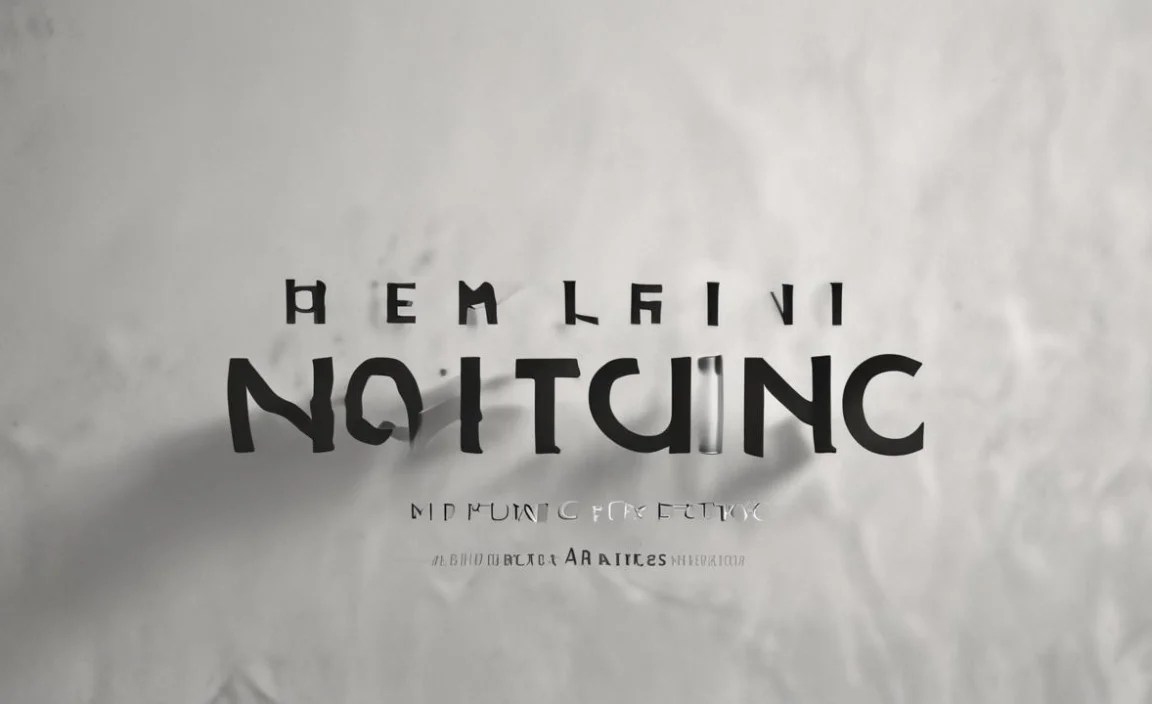
For Versatility
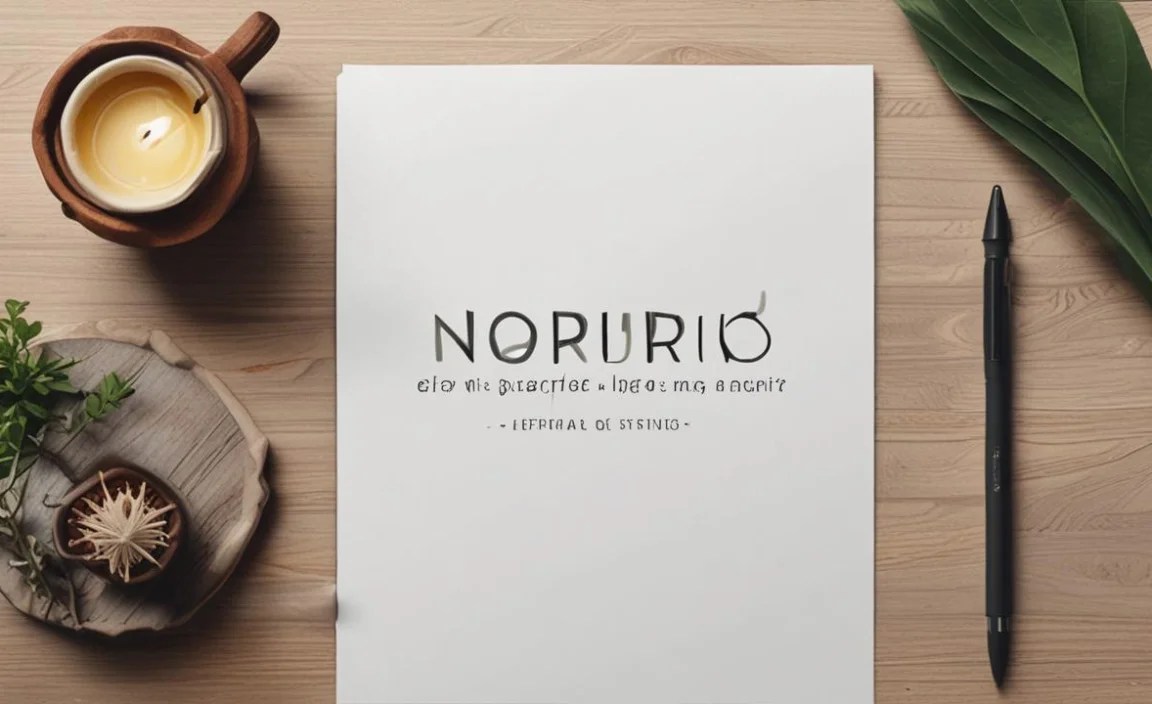
Nordic fonts can be used in a variety of applications, from logos and branding to posters and websites. Their clean lines and distinctive characteristics make them perfect for both print and digital mediums.
Character and Personality
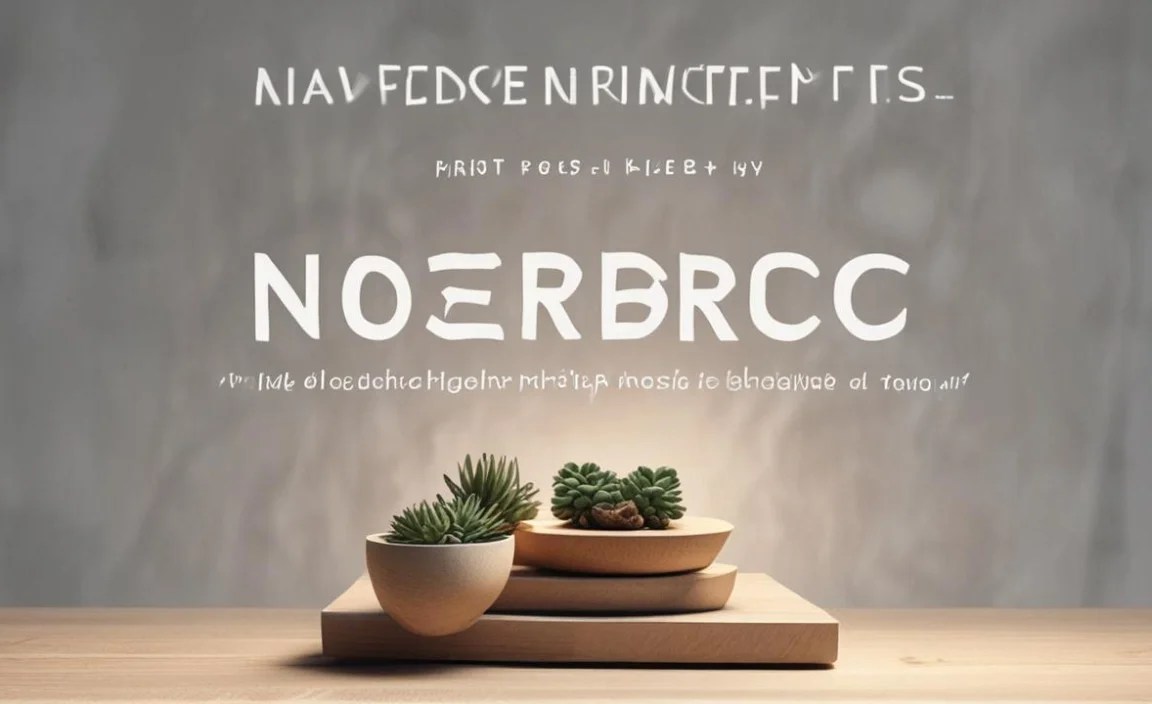
Whether you’re looking for something elegant, decorative, or futuristic, Nordic fonts offer a wide range of options. Fonts like Nordic Tale evoke a historical feel, while others with modern geometric forms provide a more contemporary, sleek appearance.
Norse Influence
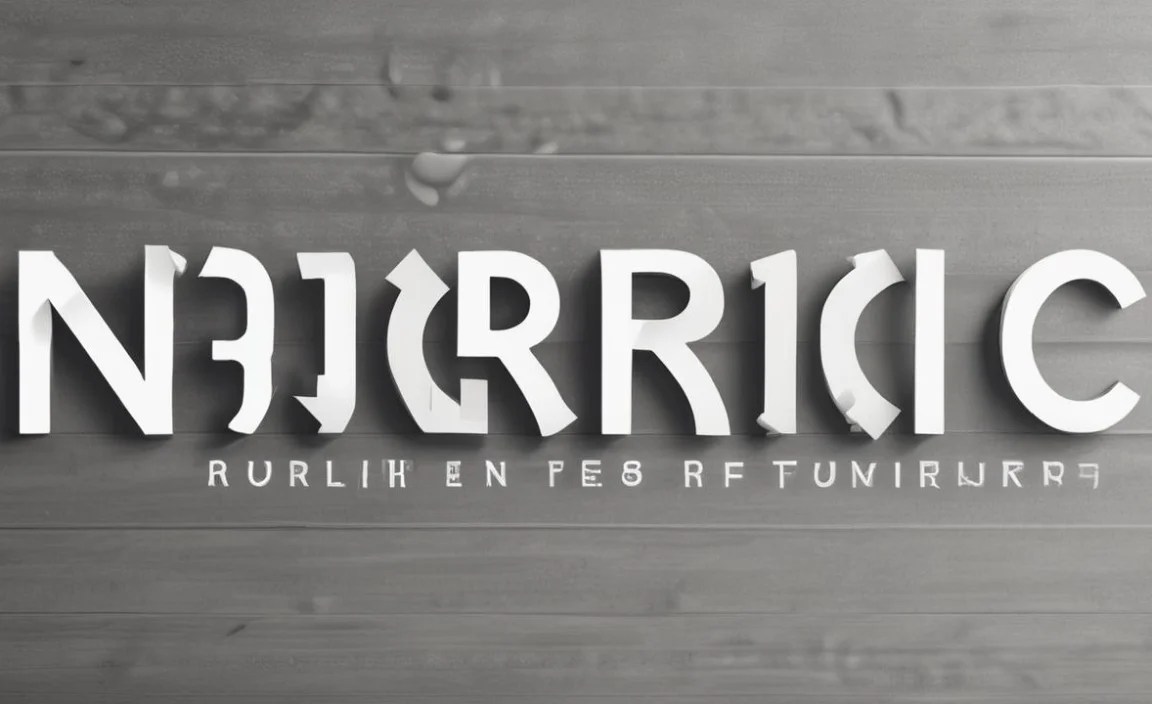
Many of the fonts draw from Norse iconography, making them ideal for projects related to pagan magazines, Nordic epigraphy, or even personal creative endeavors inspired by Viking mythology and culture.
Geometric and Decorative Styles
Fonts like Nordique Pro and Viking Nordic Runes Font offer a clean, geometric style, while others, like Nordic Dream Font Family, present a decorative and handwritten touch. There’s something for every design need, from sleek and futuristic fonts to retro fonts with vintage charm.
Bold and Impactful
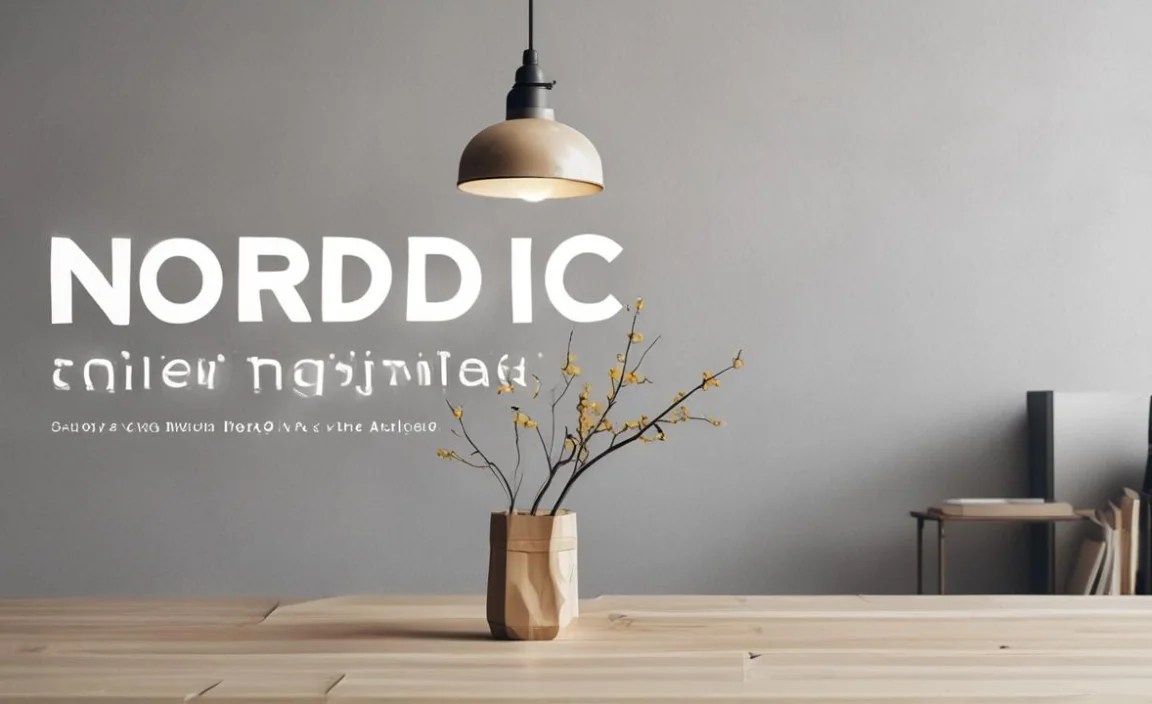
Nordic fonts are ideal for display purposes. Their uppercase letters and bold lines ensure that they stand out in any design. Whether you’re designing a poster or a logo, these fonts make a statement.
Types Of Nordic Fonts To Consider
Runic Fonts
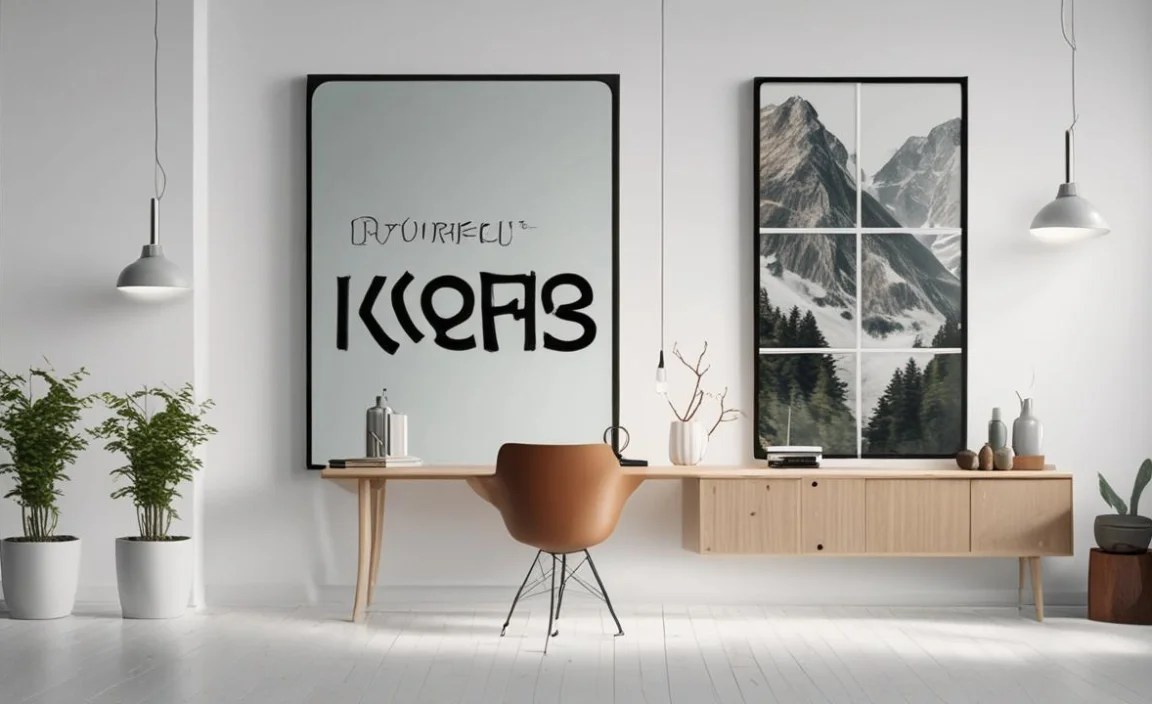
These fonts are inspired by the ancient runic alphabet, with each letter resembling the markings used by Viking warriors and Norse peoples. Runes are iconic, making them perfect for creating a historical or fantasy-inspired feel in your design. Popular options include Viking Caps and Beowulf Runic.
Serif Fonts
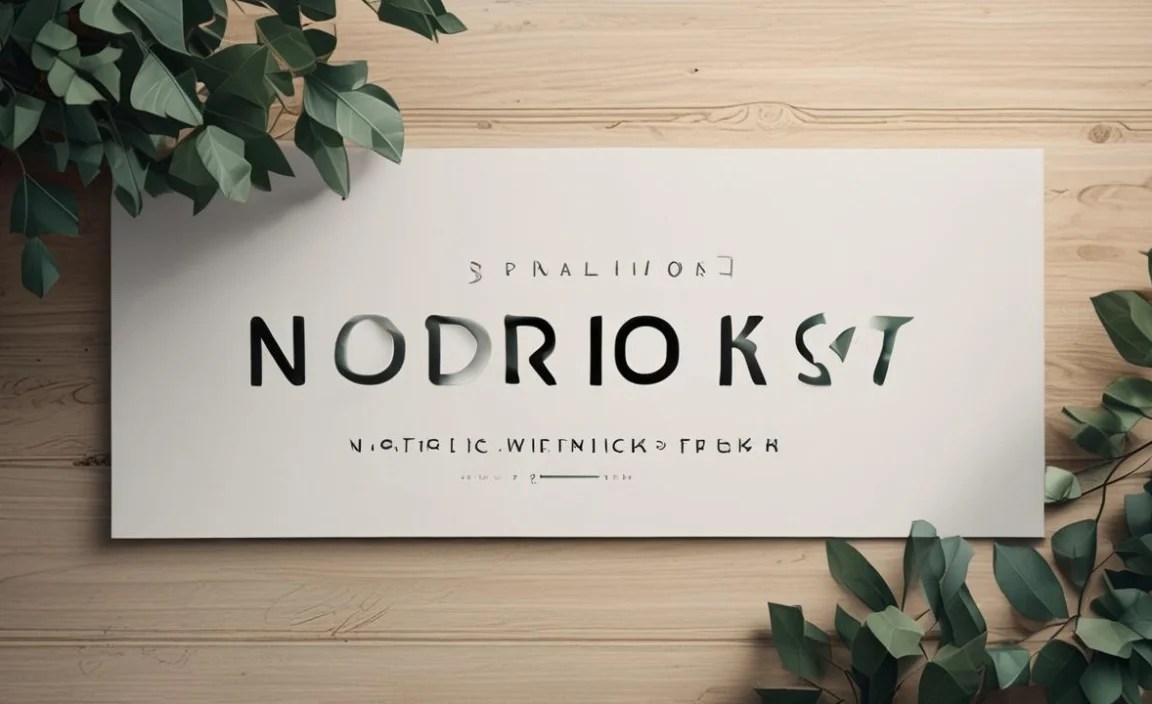
Serif fonts are a timeless classic that often evoke a sense of tradition and reliability. In the Nordic font world, serif fonts like Nordique Pro Regular blend modern and vintage elements to create an aesthetic that feels both current and rooted in history.
Sans Serif Fonts
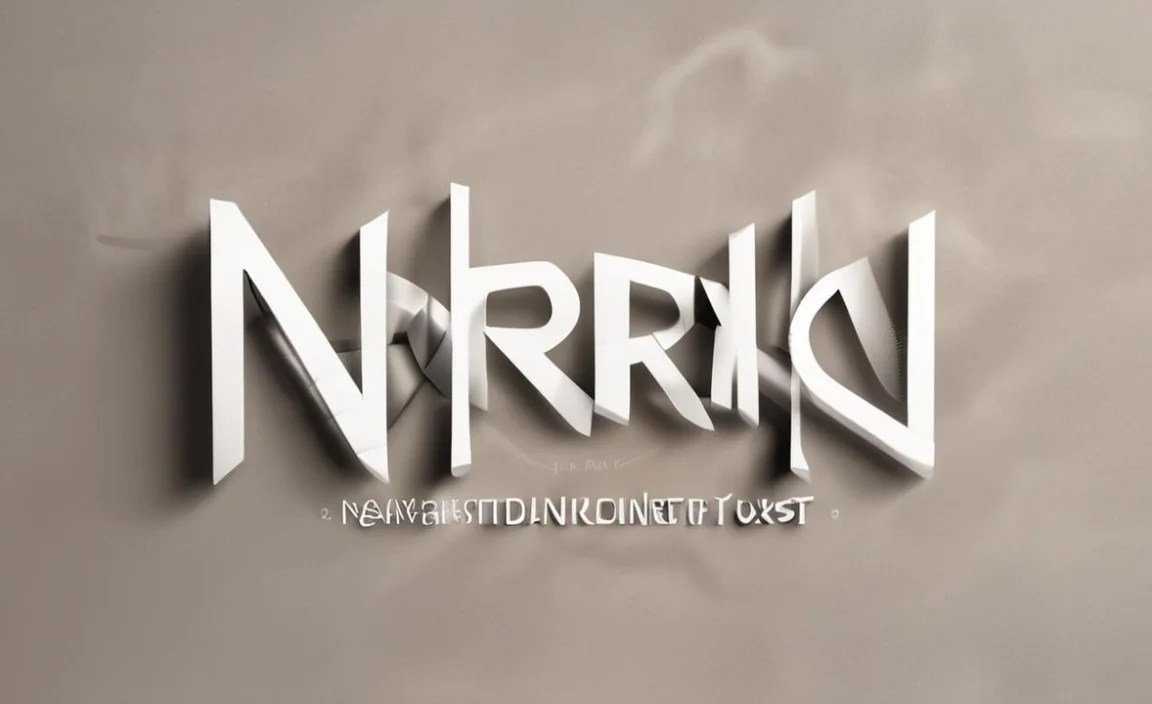
For those who prefer something more minimal and modern, sans serif fonts like Nordique Pro Bold or Sacred North Display Font are great choices. They offer clean lines and excellent legibility, making them perfect for a variety of design projects.
Script Fonts
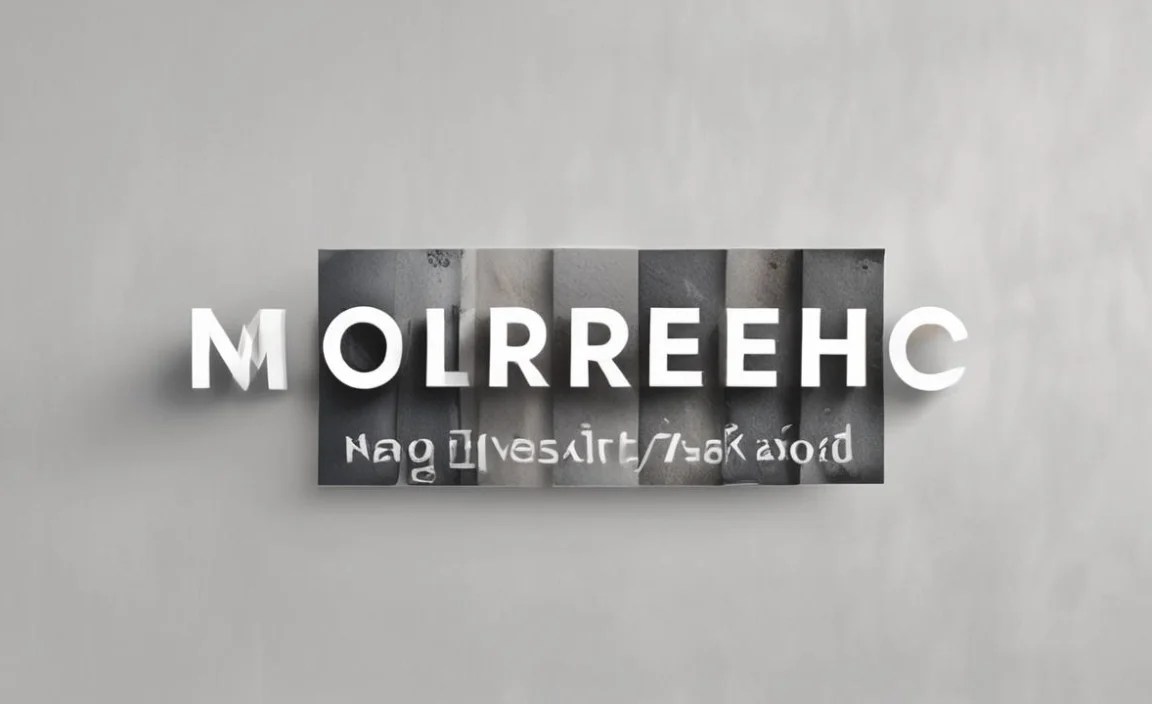
If you’re looking for something more fluid and organic, script fonts like Scandia Headline Font give your design an elegant, handwritten touch. These fonts are great for invitations, branding, and other personal design projects.
Blackletter Fonts
Blackletter fonts evoke a historical, medieval style that’s perfect for projects with a Viking or Norse theme. Nordica Font is an excellent example of a blackletter font, ideal for creating a bold, traditional look.
Decorative Fonts
If you’re designing something more whimsical or playful, decorative fonts like Nordic Tale – Folkart Font Family can add personality and charm to your project.
Typewriter Fonts
For a more retro, vintage feel, typewriter fonts like Hygge Scandinavian Font give your design an old-school charm with a modern twist.
Choosing the Right Nordic Font for Your Project
When selecting a Nordic font for your design, there are a few things to consider:
- Purpose: Are you designing a logo, poster, or website? Choose a font that reflects the tone and message of your project.
- Legibility: Fonts like Norse Elder Futhark Typeface may be beautiful but could be hard to read for body text. Choose fonts with a clear, easy-to-read structure for larger amounts of text.
- Aesthetic: Do you want a modern, clean look or a more traditional, historical feel? Geometric fonts like Nordique Pro Inline will give you a sleek, contemporary look, while fonts like Shieldmaiden – Norse Viking Font provide a more rugged, ancient feel.
What Is A Runic Font?
A runic font is inspired by the ancient runic alphabet, often used by Vikings and Norse cultures, and is commonly used for projects with a historical or fantasy theme.
Can I Use Nordic Fonts For Website Design?
Yes, fonts like Nordique Pro Regular and Sacred North Display Font are excellent choices for clean, modern websites.